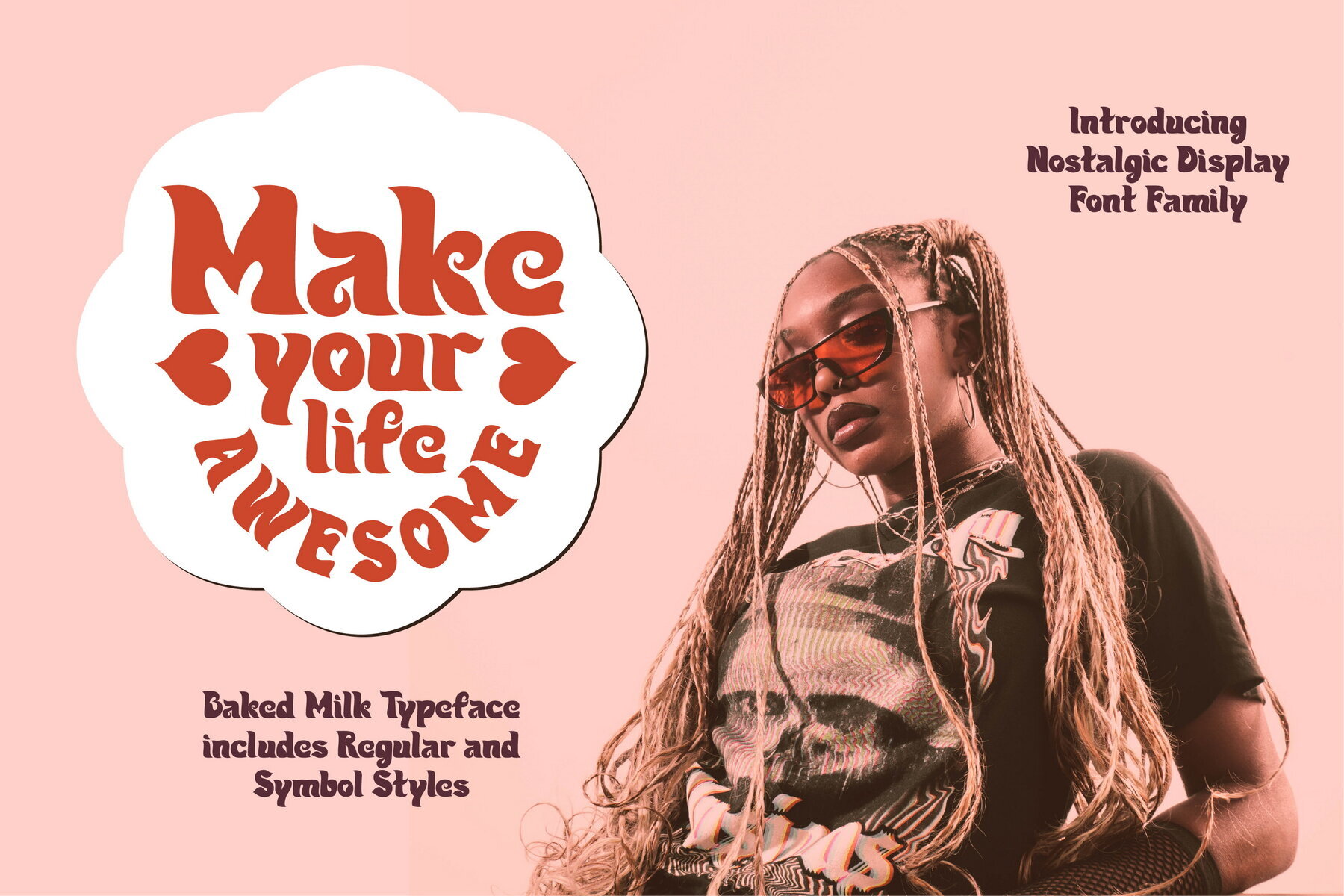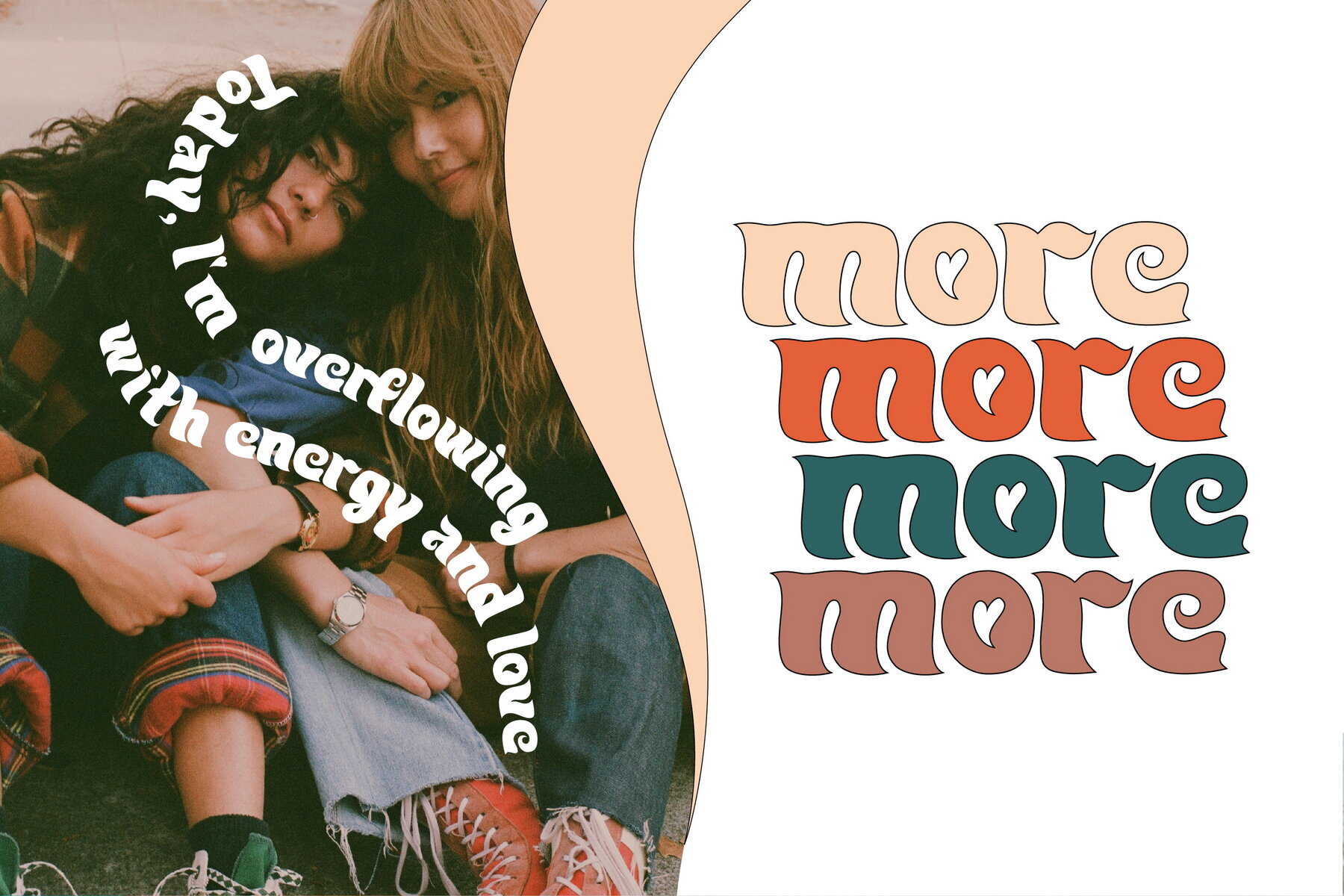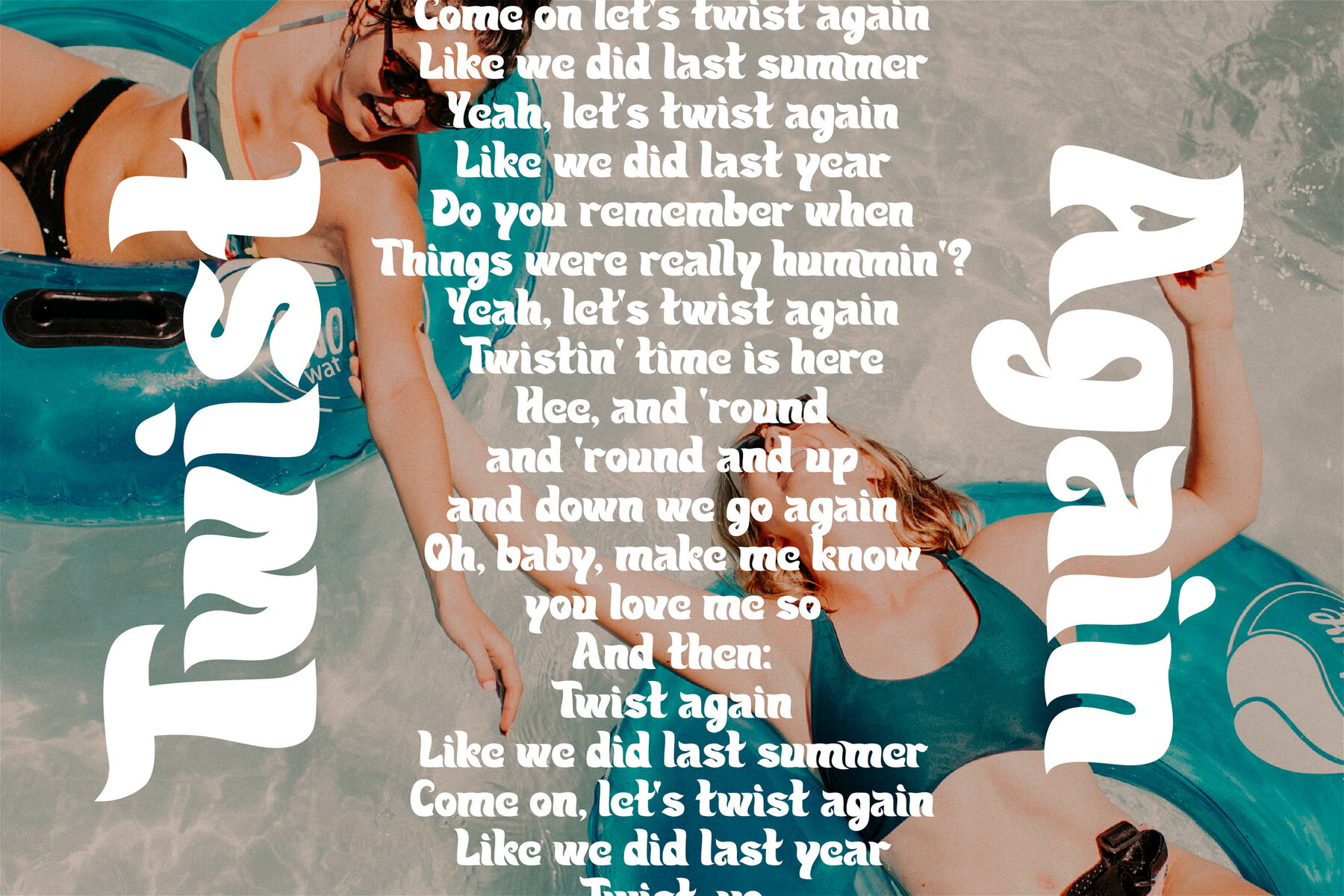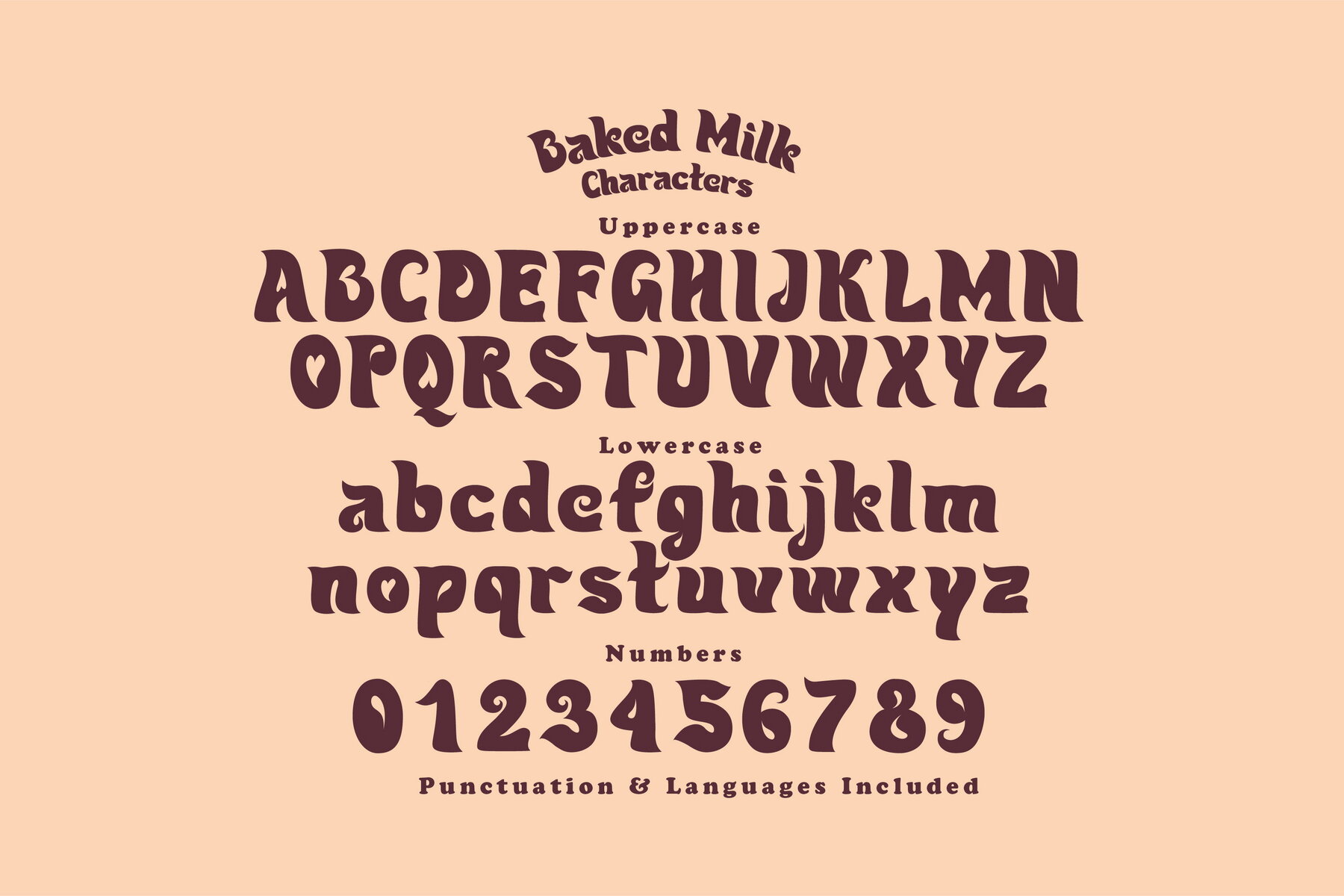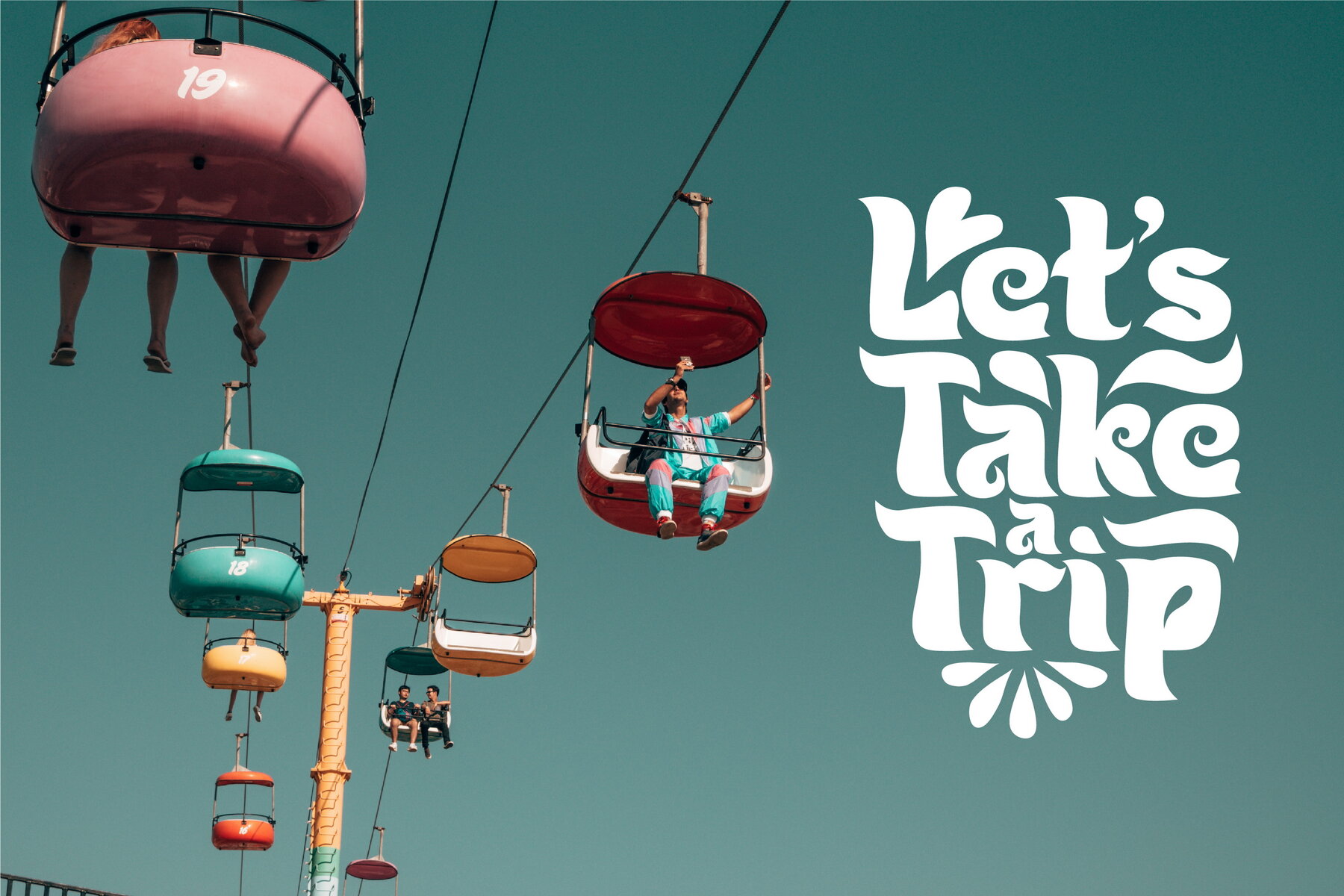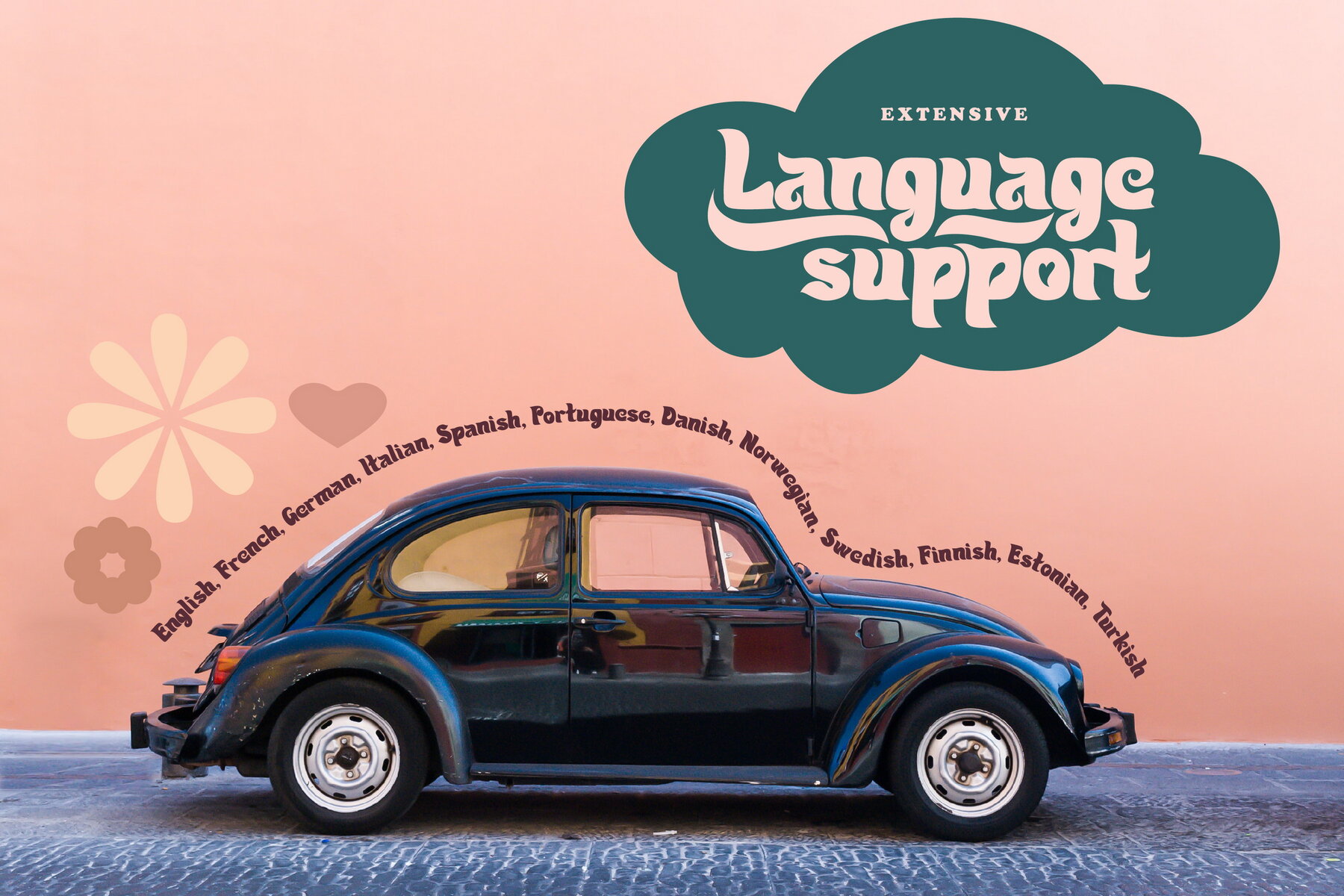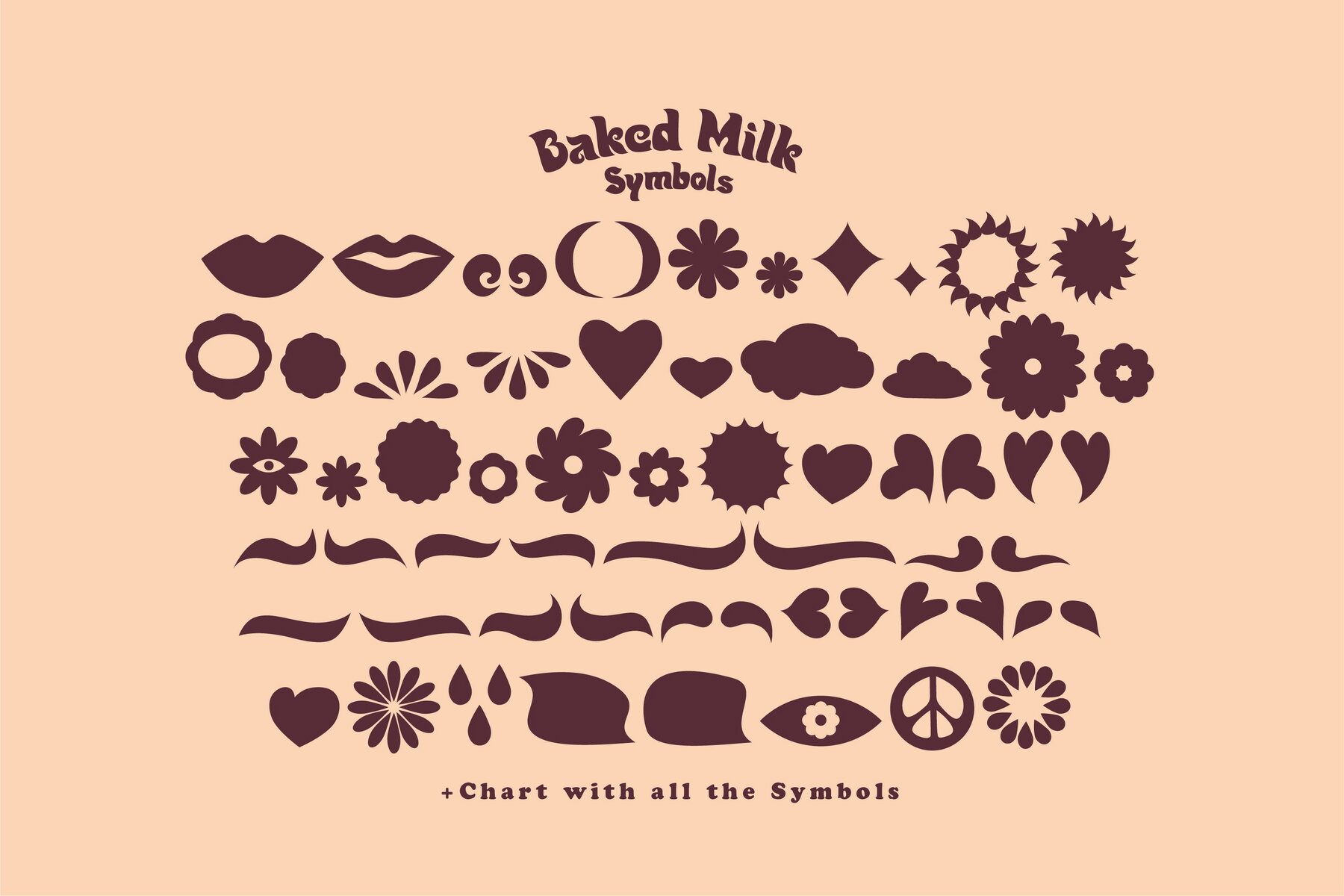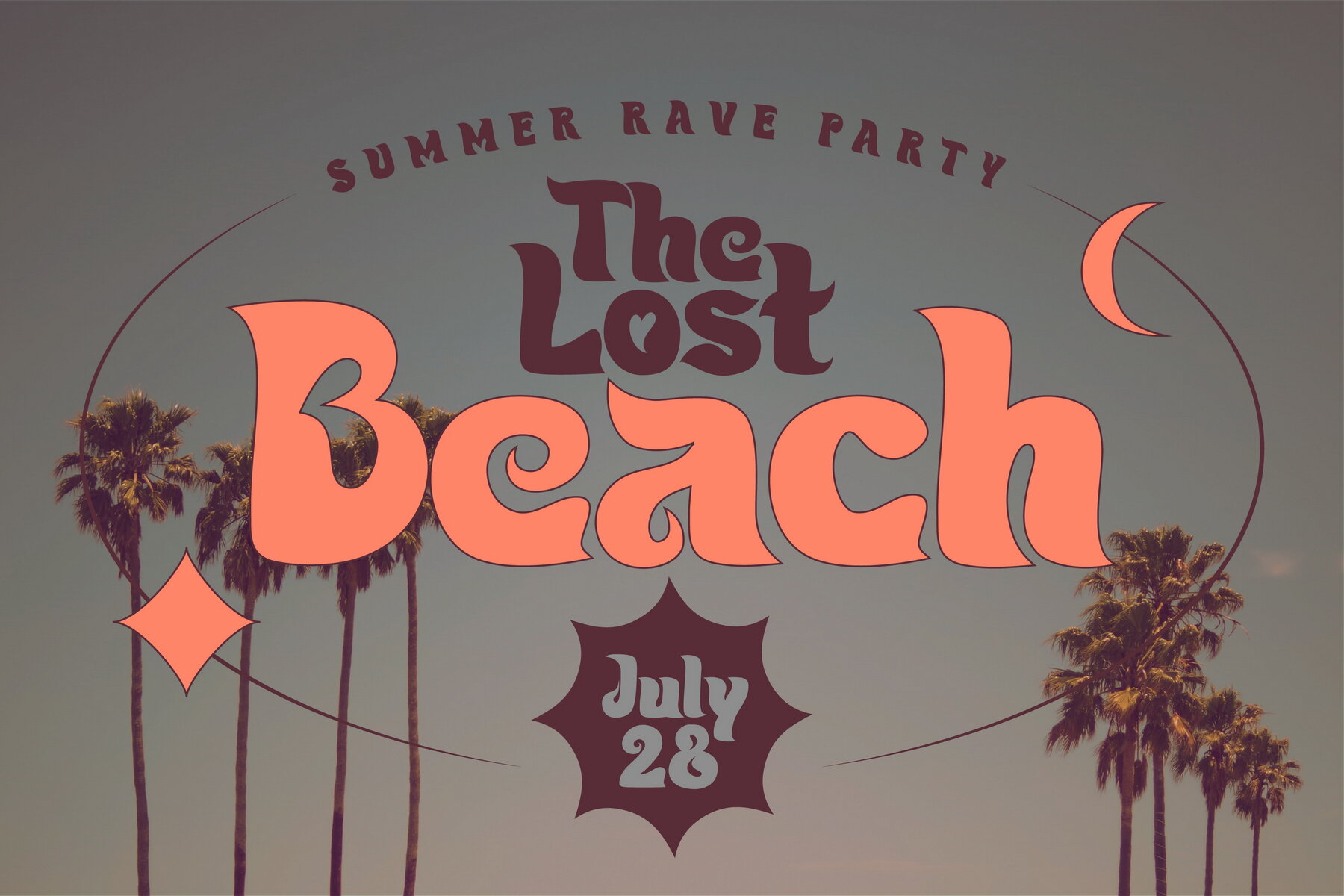
Baked Milk Font
Baked Milk Regular
Baked Milk Symbol
Baked Milk is a captivating display font family infused with nostalgic flair. Designed in a groovy retro style, this font brings back the charm of yesteryears. It features both Regular and Symbol styles, making it versatile for various design needs. Whether you're crafting retro summer posters, menus, social media graphics, or brand elements, Baked Milk offers the perfect typographic touch.
In addition to its visual appeal, Baked Milk provides extensive language support, ensuring its accessibility and effectiveness for a wide audience. Its nostalgic aesthetic is ideal for those looking to evoke a sense of warmth and familiarity in their design projects.